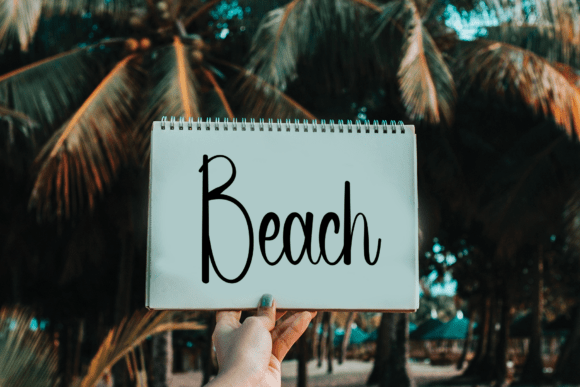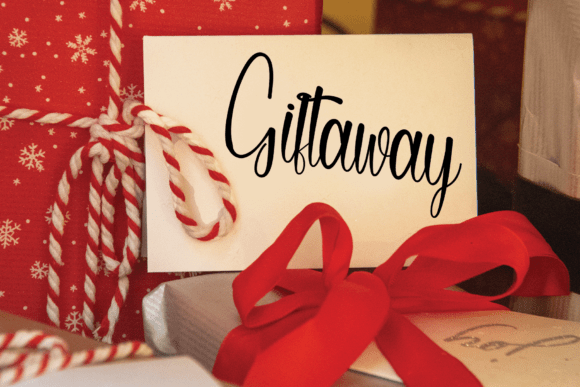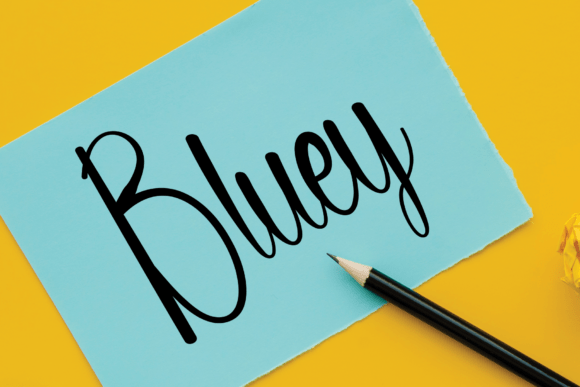
Introduction to Shamrocks Font
As designers, we’ve all been there – staring at a blank canvas, desperate for that one element that brings our creative project to life. And then, it happens – a spark of inspiration strikes, and we’re off and running. For those looking to add a touch of whimsy and charm to their designs, look no further than the enchanting Shamrocks Font.
With its delicate, handwritten characters that dance along the baseline, this font is sure to captivate and delight. Whether you’re working on a personal project or collaborating with clients, the Shamrocks Font is a valuable design resource that will elevate your work to the next level. Its high-quality aesthetic and transparent background make it the perfect addition to any creative endeavor, and the best part? It’s available for free download, making it an accessible and affordable choice for designers of all levels.
Key Features of Shamrocks Font
- Unique, hand-drawn design for a creative project, making it a valuable design resource.
- Available in a high-quality, transparent background, allowing for seamless integration into any design.
- Perfect for designers working on projects that require a touch of Irish charm and whimsy, such as St. Patrick’s Day-themed designs or Celtic-inspired artwork.
Honest Review: Shamrocks Font
I recently had the chance to work with the Shamrocks Font, and I must say it’s a solid addition to any design resource collection. The font is a free download, which is always a plus for designers on a budget. When used with a transparent background, the font really shines, making it perfect for creative projects that require a touch of whimsy.
Here are some things that work well with the Shamrocks Font:
- Its unique, hand-drawn design gives projects a personal touch.
- The font is highly customizable, allowing designers to adjust the size, color, and spacing to suit their needs.
- It’s a high-quality font that’s perfect for use in print or digital designs.
- The font may not be suitable for projects that require a lot of text, as it can be difficult to read in large quantities.
- It’s not as versatile as some other fonts, making it less suitable for corporate or formal designs.
Overall, I’m impressed with the Shamrocks Font. It’s a great addition to any design resource collection, and it’s perfect for designers who want to add a touch of personality to their projects. Just be aware of its limitations, and use it sparingly in the right situations.
How to Use Shamrocks Font
Transparent Background and Customization
The Shamrocks Font is perfect for creating high-quality designs with a transparent background. You can customize the font to fit your creative project by adjusting the font size, color, and style. This font is ideal for designers who want to create unique and eye-catching designs.
Some tips for getting the most out of the Shamrocks Font include experimenting with different font combinations and using it in conjunction with other design elements. Common use cases for this font include designing logos, business cards, and social media graphics.
Is the Shamrocks Font a high-quality design resource?
Yes, the Shamrocks Font is a high-quality design resource that is carefully crafted to provide a unique and creative touch to your projects. With its elegant and intricate design, the Shamrocks Font is perfect for any design project that requires a touch of sophistication and elegance.